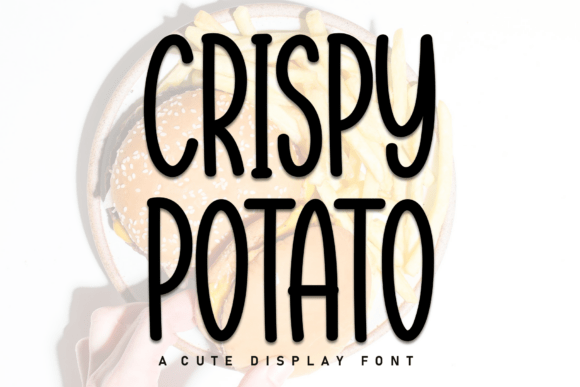
Crispy Potato Font: Elevate Your Design with a Relaxed yet Luxurious Touch
The world of typography is vast and diverse, offering a multitude of font styles to suit various design needs. Among these, the Crispy Potato font stands out for its unique blend of casual elegance and sporty vibe. This handwritten font, crafted to mimic the look of marker-drawn letters, brings a refreshing touch to any design project. In this article, we’ll delve into the characteristics of the Crispy Potato font, its applications, and why it has become a go-to choice for designers seeking a luxurious yet casual aesthetic.
The Essence of Crispy Potato Font
Crispy Potato is a handwritten font that exudes a relaxed and sporty feel. Its marker-drawn appearance lends it a casual, approachable vibe that is hard to resist. The font’s unique charm lies in its ability to convey a sense of luxury and elegance while remaining laid-back and informal. This versatility makes it an excellent choice for a wide range of design projects.
Key Characteristics:
- Handwritten Style: Mimics writing with a marker, giving it a personal touch.
- Relaxed and Sporty Feel: Ideal for designs that require a casual yet dynamic look.
- Luxurious and Elegant: Adds a touch of sophistication without appearing too formal.
Applications of Crispy Potato Font
The versatility of the Crispy Potato font makes it suitable for various design applications. Its unique blend of casualness and elegance allows it to shine in multiple contexts.
Popular Uses:
- Branding: Create memorable and distinctive brand identities.
- Logos: Perfect for logos that need to convey a friendly, approachable image.
- Wedding Supplies: Adds a personal touch to wedding invitations, decorations, and more.
- Greeting Cards: Ideal for creating warm and inviting greeting cards.
- Fashion and Lookbooks: Brings a stylish and contemporary feel to fashion designs.
- Marketing Promotions: Elevate promotional materials with a sophisticated yet casual look.
Why Choose Crispy Potato Font?
In a world where design trends are constantly evolving, the Crispy Potato font offers a timeless appeal that can adapt to various styles and themes. Here are a few reasons why designers and brands are gravitating towards this font:
Advantages:
- Versatility: Suitable for a wide range of projects, from casual to high-end designs.
- Uniqueness: Stands out from more traditional fonts with its marker-drawn look.
- Emotional Connection: Creates a friendly and approachable feel, helping brands connect with their audience.
Tips for Using Crispy Potato Font Effectively
To maximize the impact of the Crispy Potato font in your designs, consider the following tips:
Best Practices:
- Pair with Complementary Fonts: Use Crispy Potato as a headline font and pair it with a simpler font for body text.
- Adjust Letter Spacing: Experiment with kerning to enhance readability and aesthetic appeal.
- Play with Colors: Take advantage of the font’s versatility by using it in various colors and gradients.
The Crispy Potato font is a valuable addition to any designer’s toolkit. Its unique blend of casual elegance and sporty charm makes it an excellent choice for a wide range of projects. Whether you’re working on branding, logos, wedding supplies, or marketing promotions, this font can help you achieve a luxurious yet approachable look. By incorporating Crispy Potato into your designs, you can create visually appealing and memorable pieces that resonate with your audience.
Embrace the Versatility of Crispy Potato Font
As you explore the possibilities of the Crispy Potato font, you’ll discover its potential to elevate your designs and connect with your audience on a more personal level. Don’t be afraid to experiment and push the boundaries of what this versatile font can achieve.